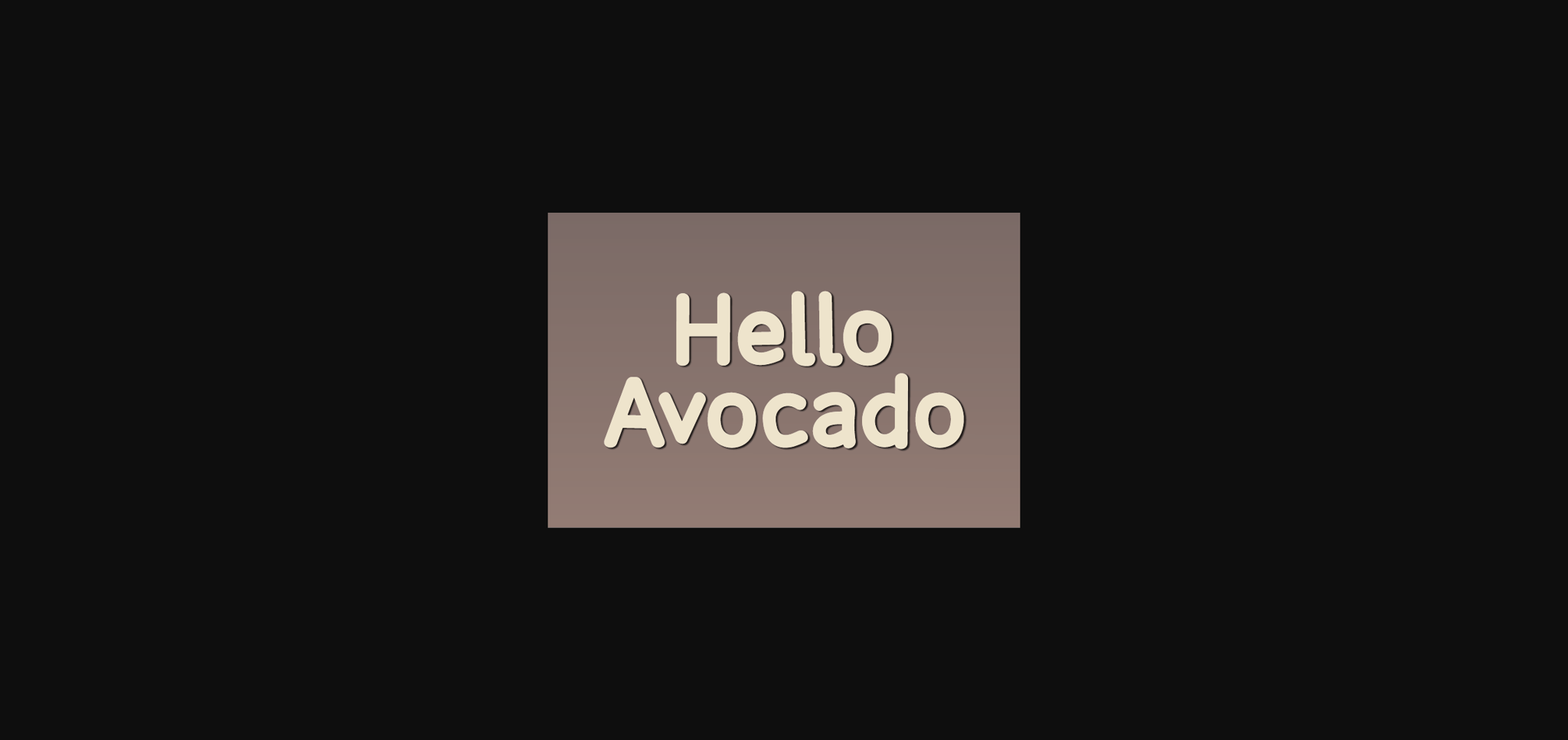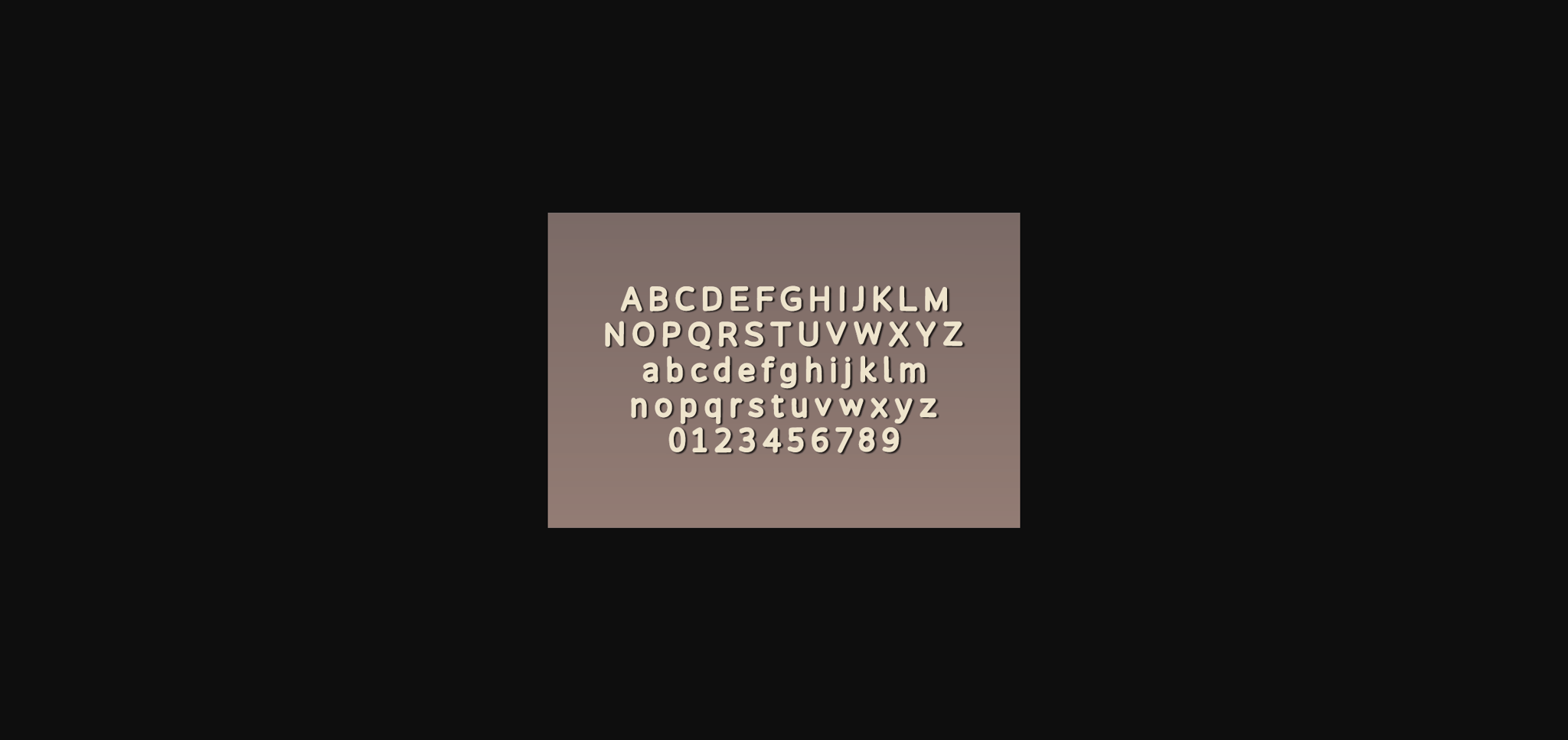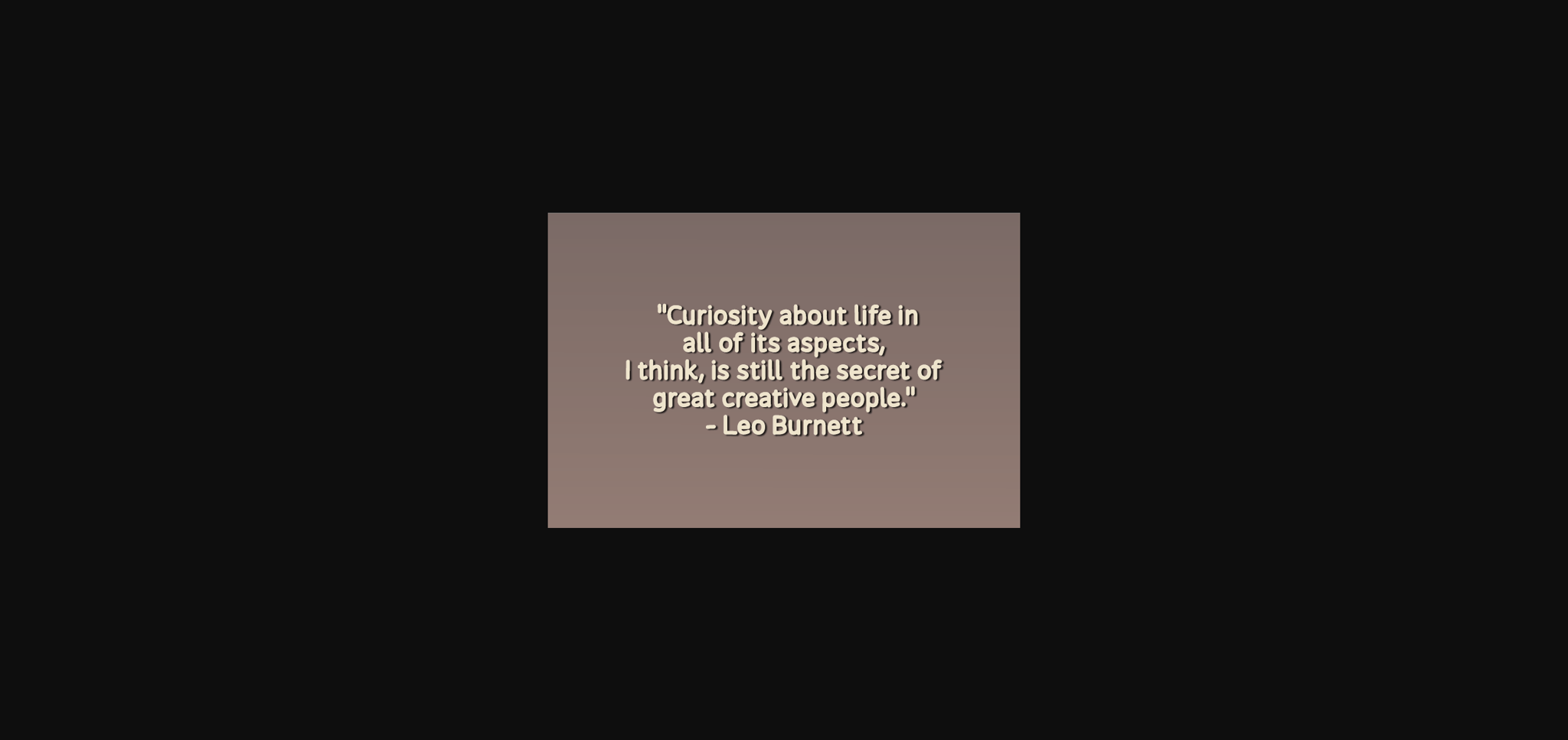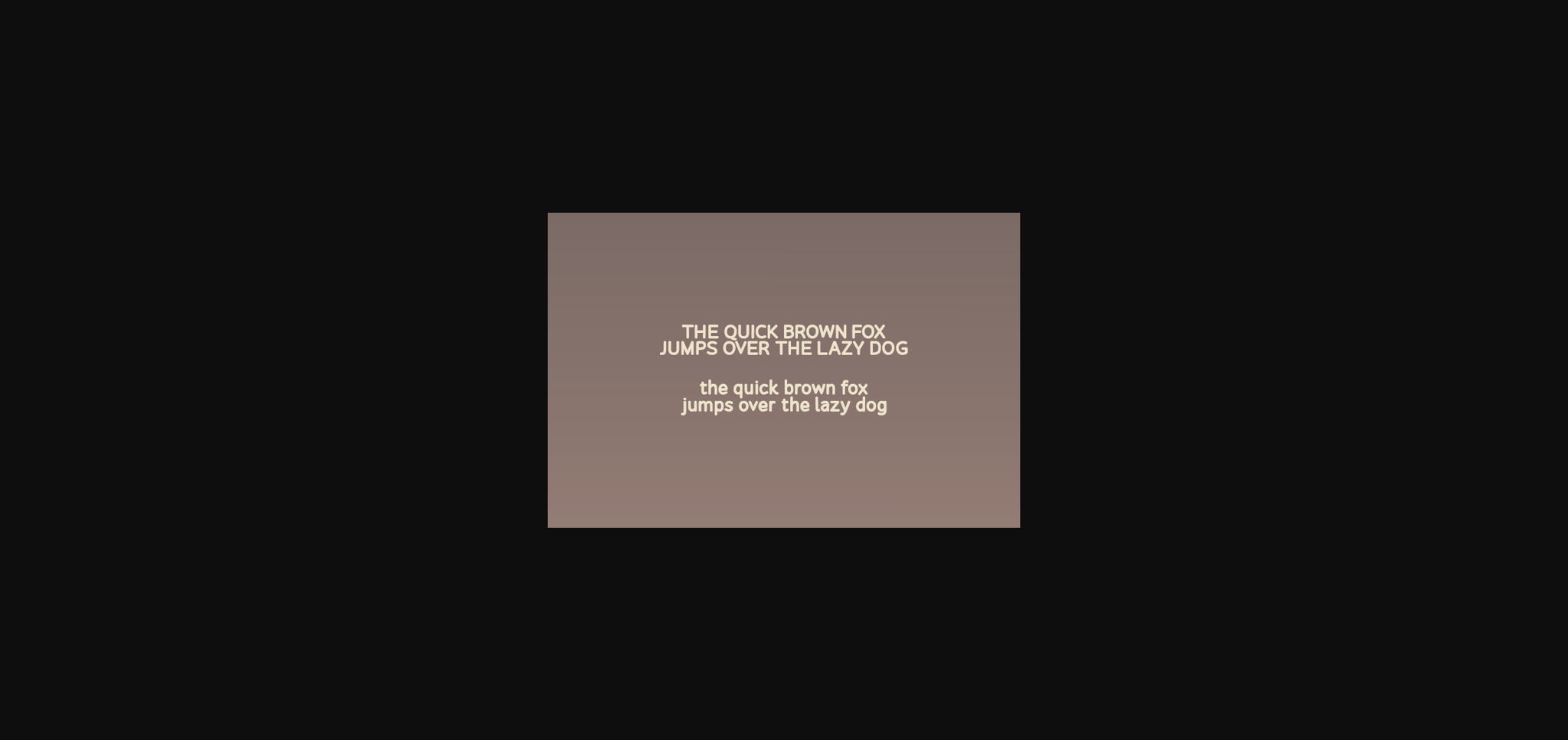
Hello Avocado is a natural sans serif font made without changing a single node in each character’s indentation – this makes this font very interesting and unique. Perfect for quotes, notes, tees, and any product design.